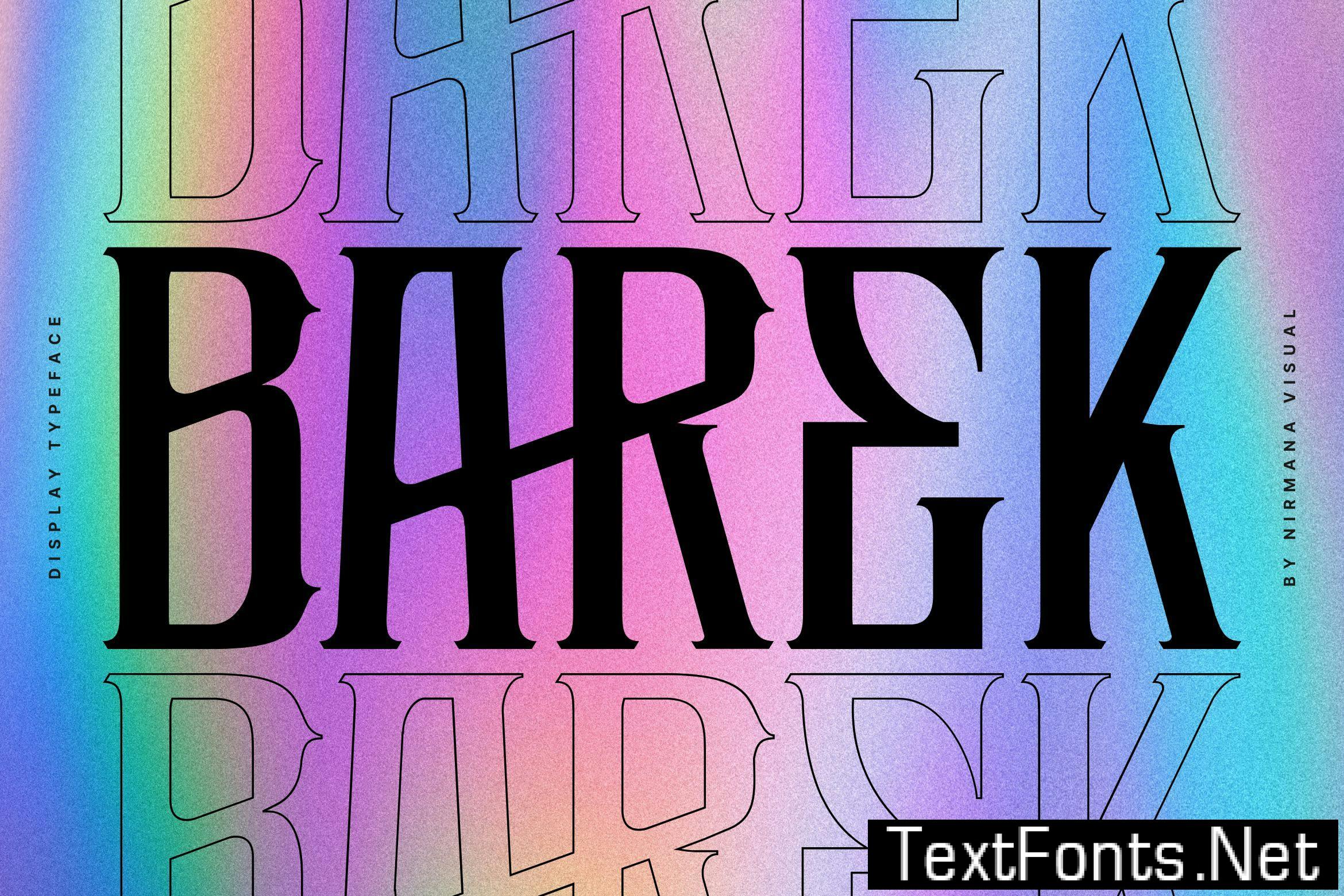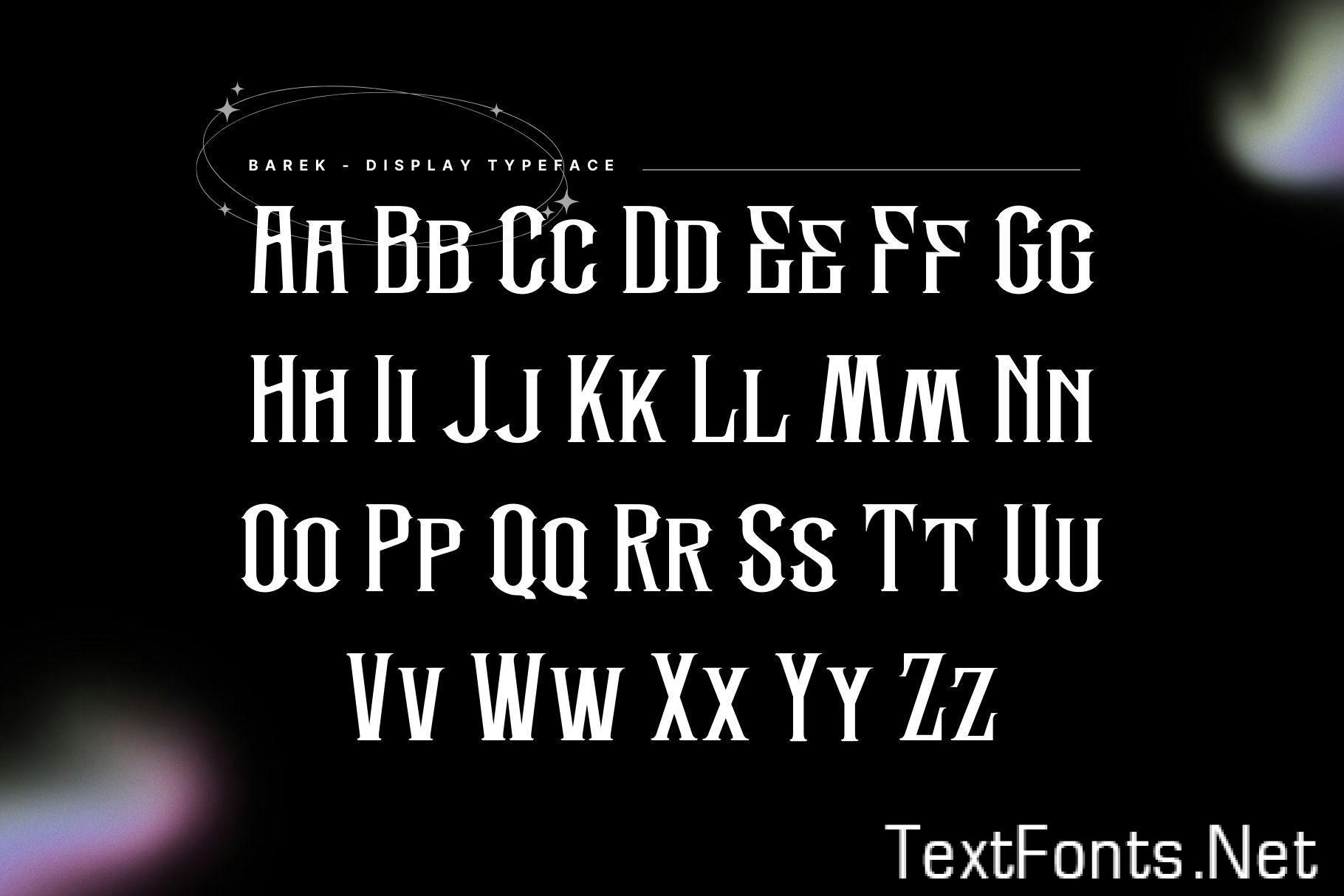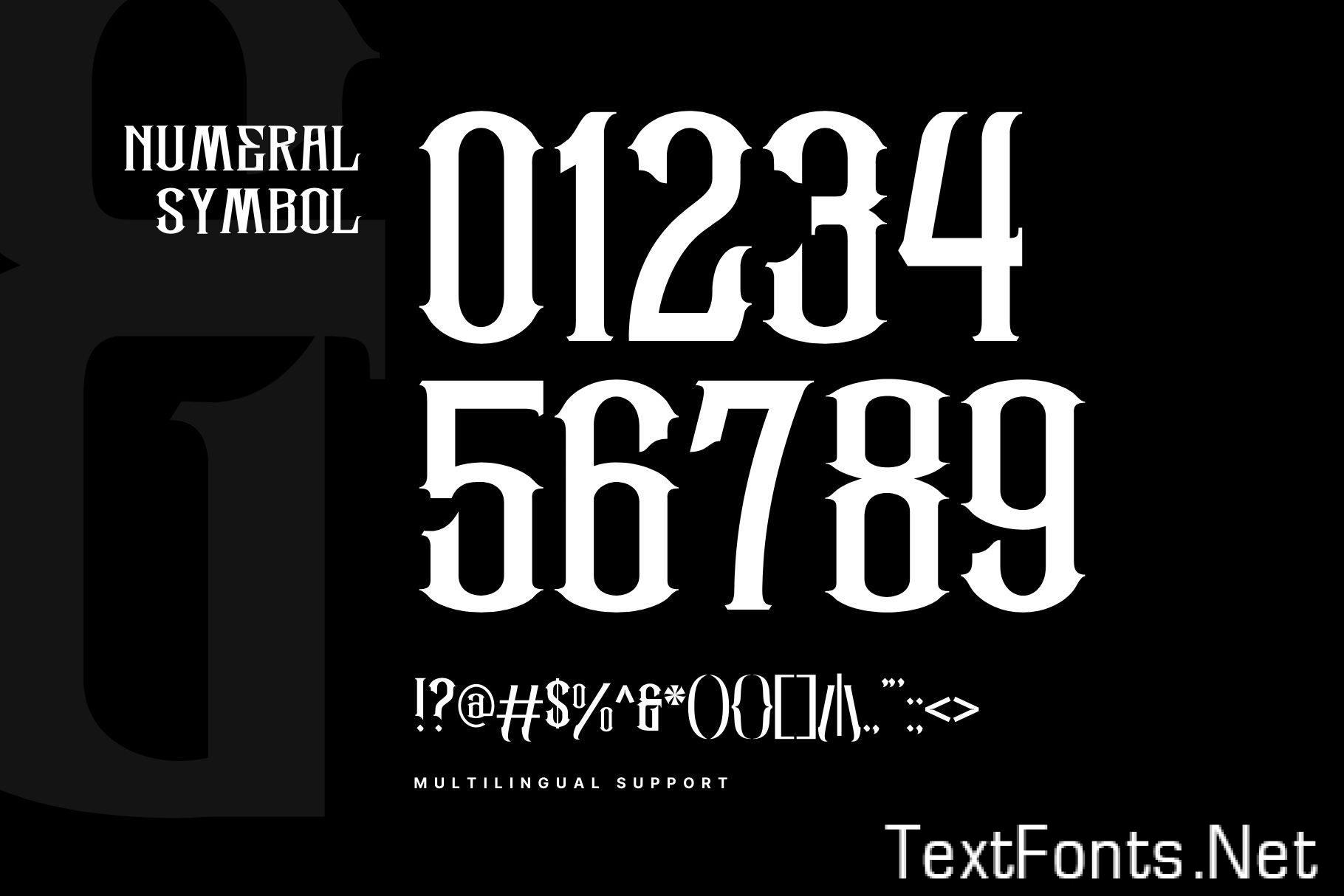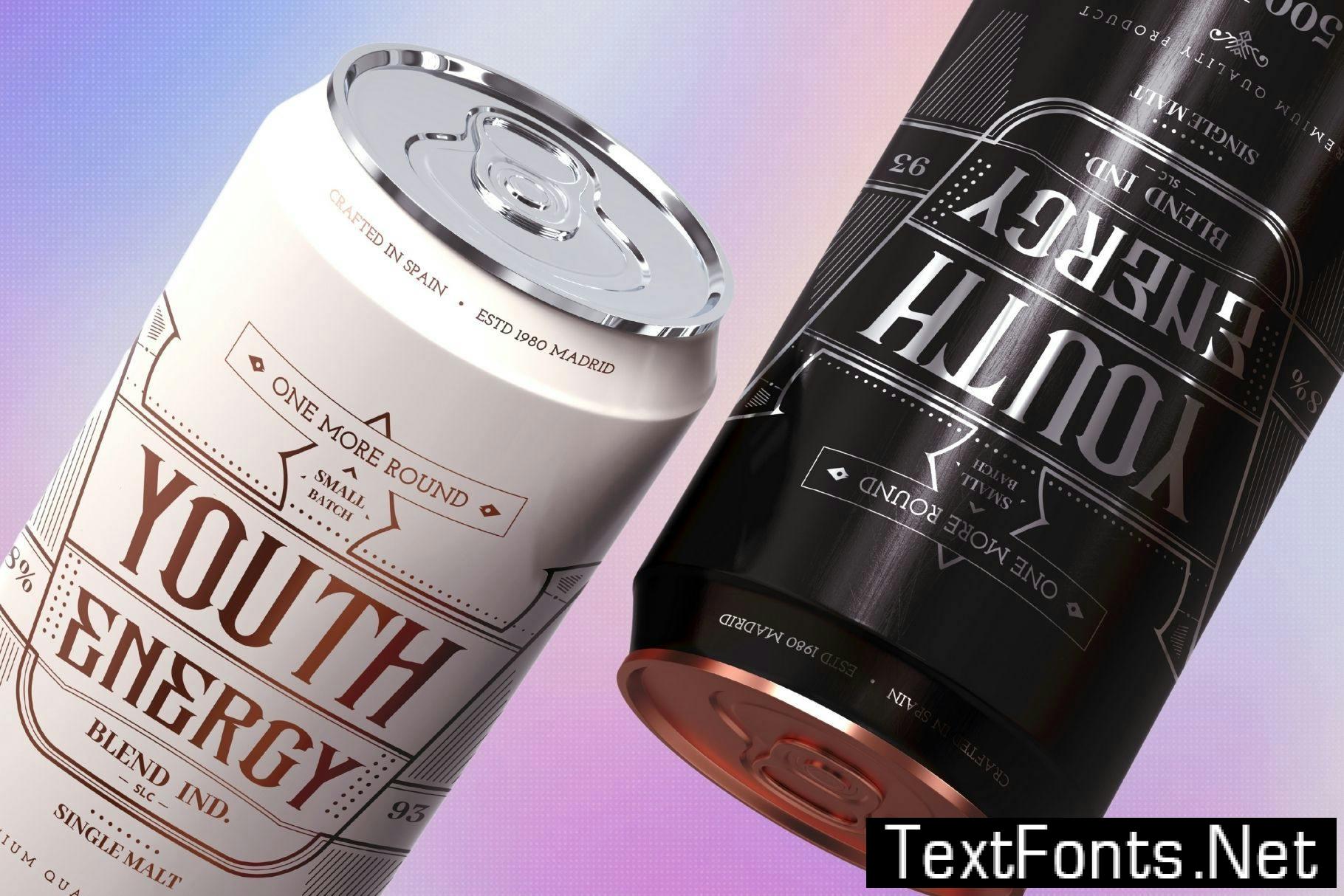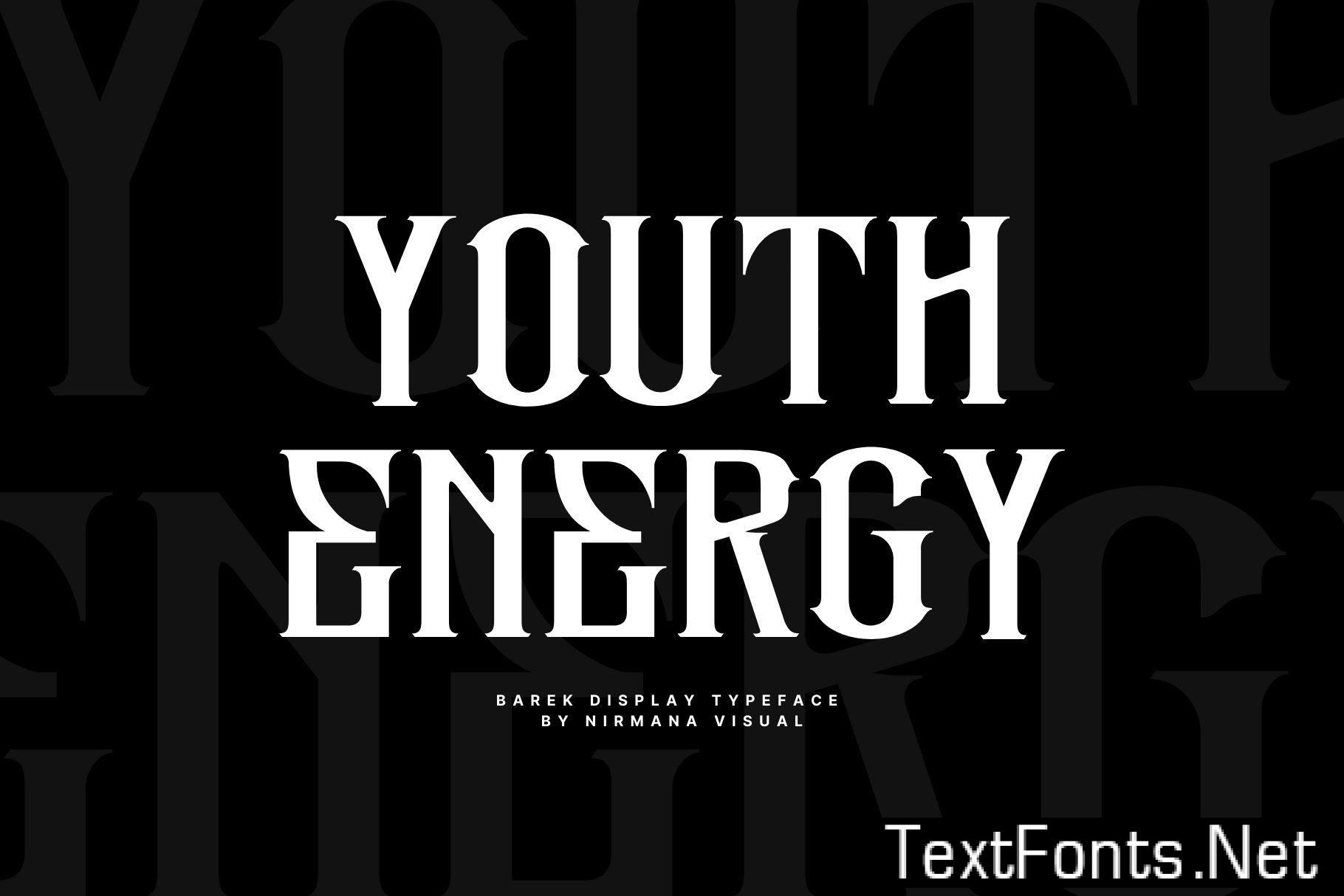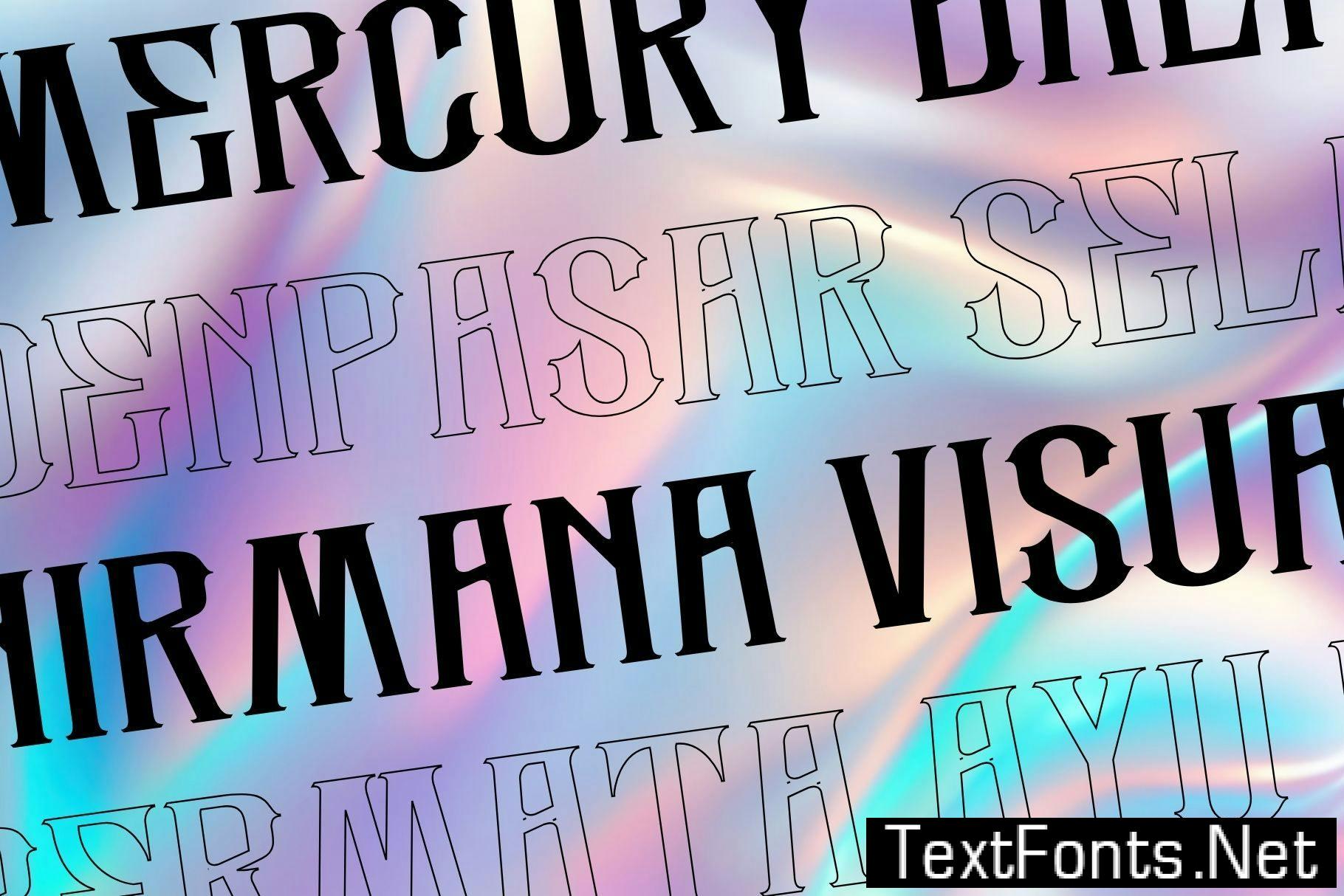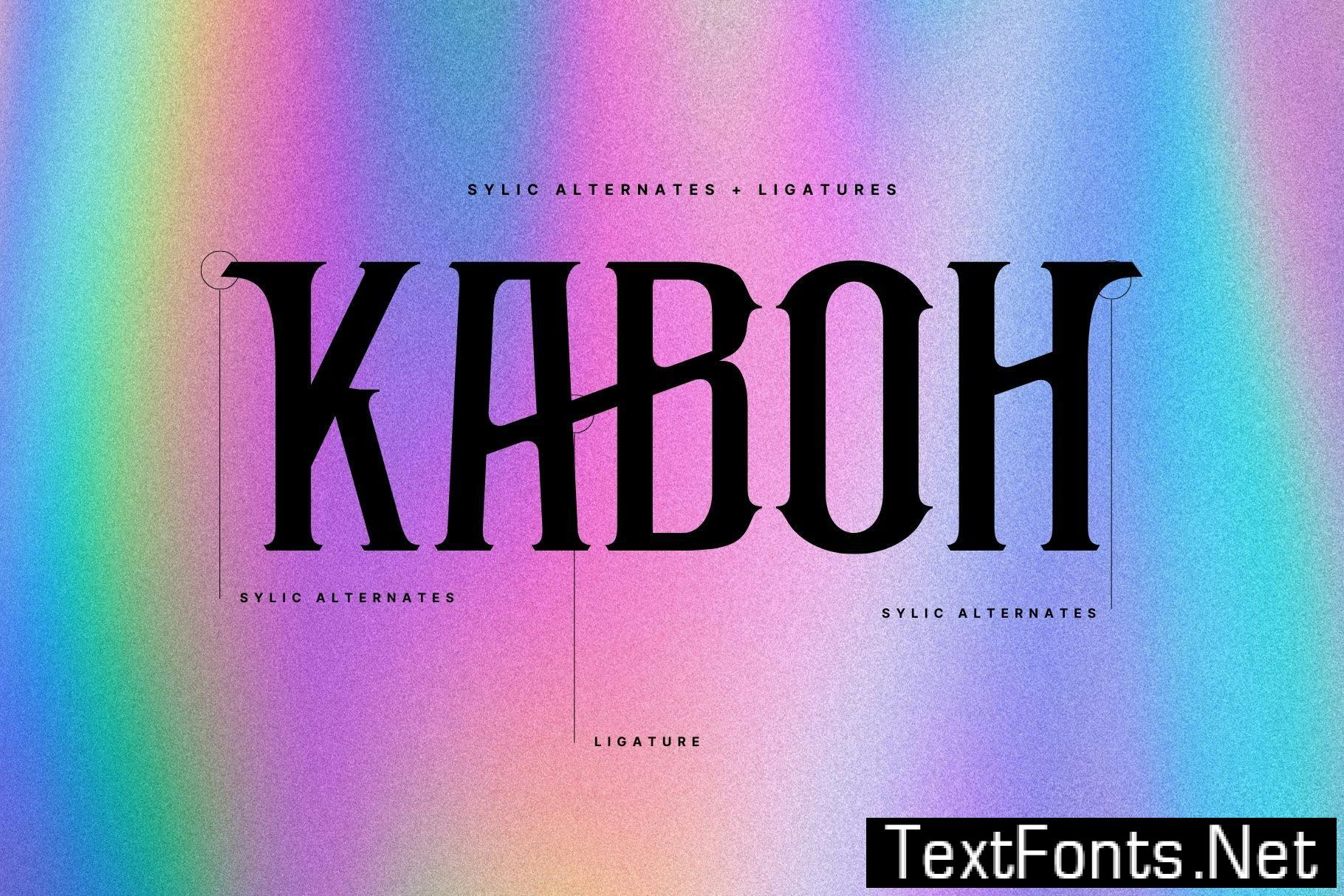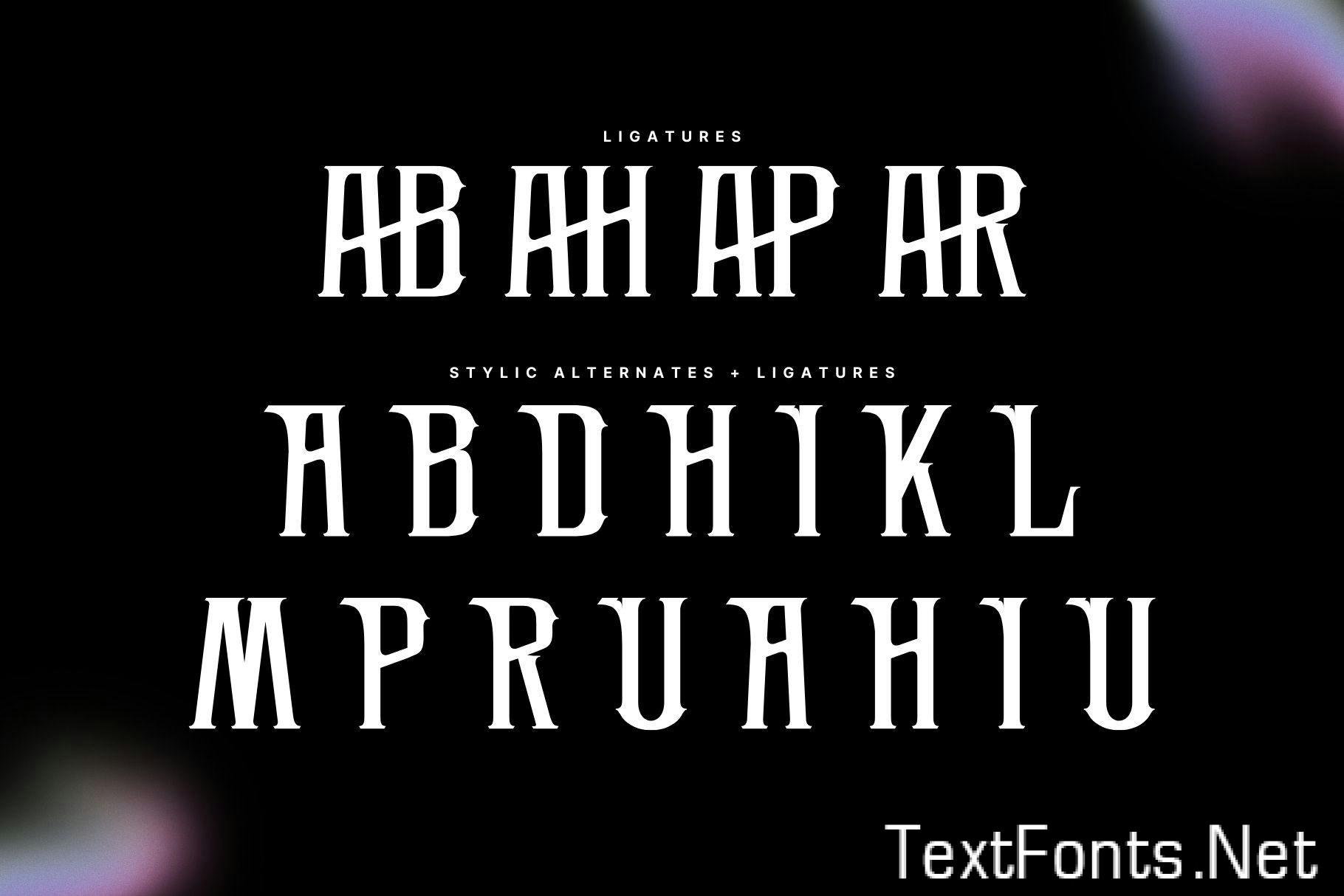
**Barek Display – Logo Font**
Barek Display offers beautiful typographic harmony for a diversity of design projects, including logos & branding, social media posts, advertisements & product designs.